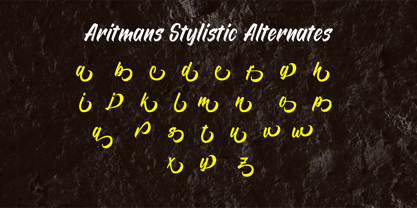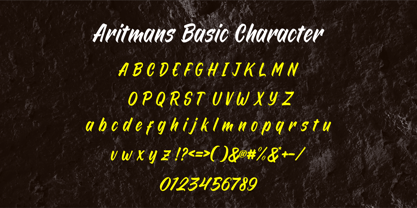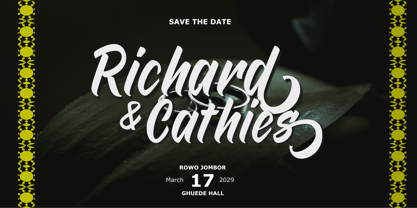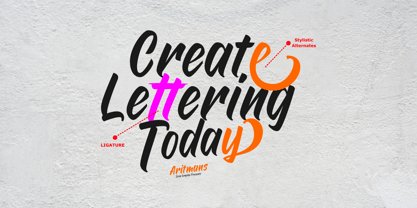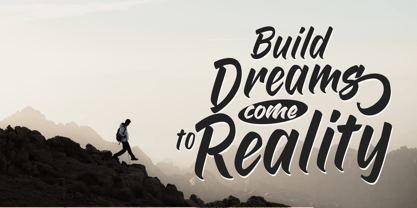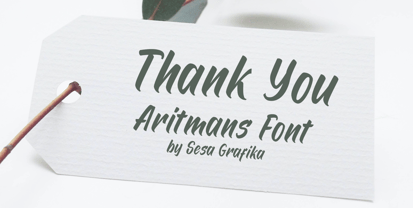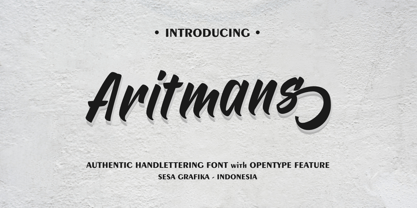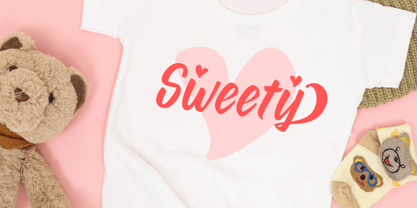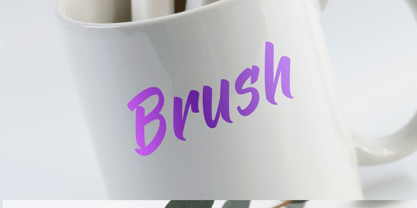
Aritmans
by Sesa Grafika
The Aritmans Font Family was designed by Wisesa Purba Giandar and published by Sesa Grafika. Aritmans contains 1 styles.
Aritmans Font is a classic handwritten font. Clean and a little bit quirky, this font is the perfect fit for all of your logos, branding, social media, and crafty DIY projects.
Aritmans is versatile and well-suited for a variety of applications, including wedding invitations, luxury branding, fashion labels, and high-end packaging. The font features an array of alternate characters and stylistic sets, allowing for endless customization to achieve the perfect look for your project.
With its timeless appeal and refined aesthetic, Aritmans brings a touch of elegance to any design, making it a go-to choice for those looking to add a sophisticated flair to their work.